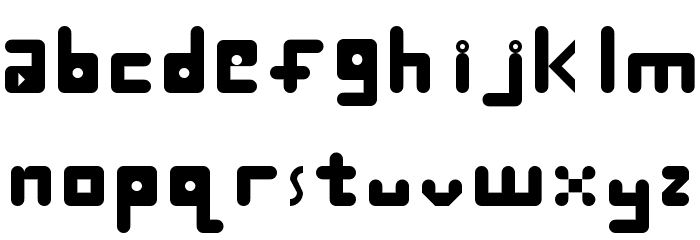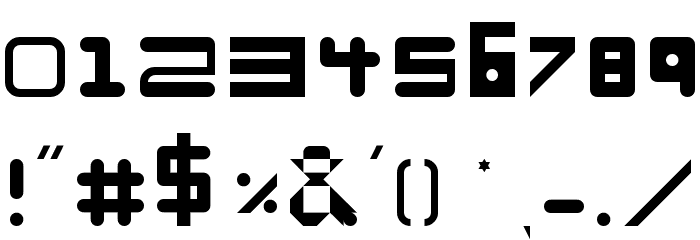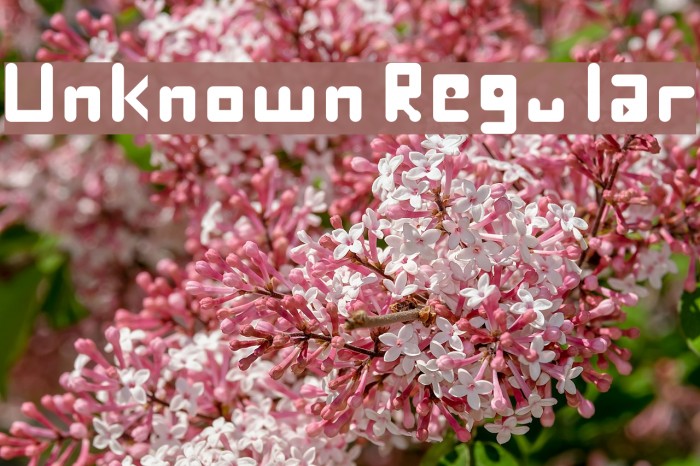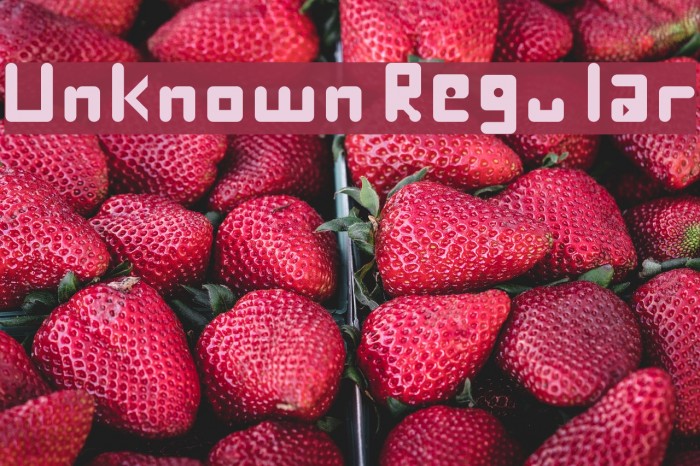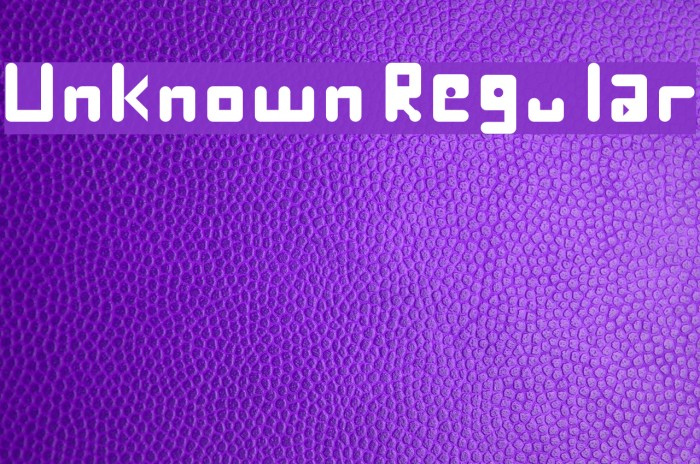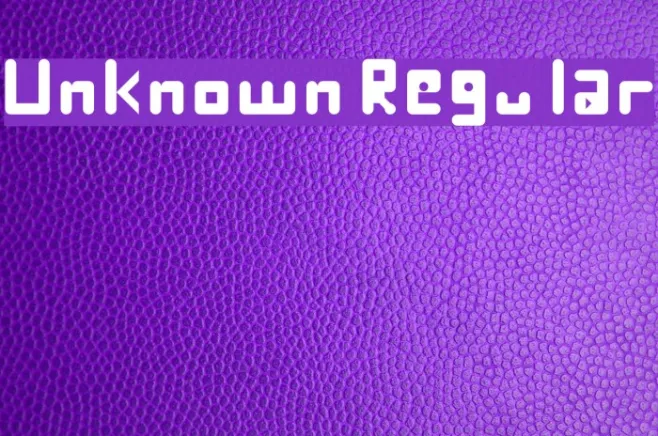
Unknown Regular Font
This font features a bold and futuristic design with geometric shapes and a strong presence. The uppercase letters are characterized by thick, rounded edges and a uniform stroke width, giving them a robust and modern appearance. The lowercase letters maintain the same boldness, with unique forms that add a playful touch. Numbers are equally bold, with a consistent style that matches the alphabet. Special characters are creatively designed, incorporating the same geometric and bold elements. The overall style is eye-catching and suitable for projects that require a modern and dynamic look.
A bold, geometric font with a futuristic and modern style.
- Proposed Projects: Ideal for technology branding, sci-fi posters, video game titles, and modern advertising.